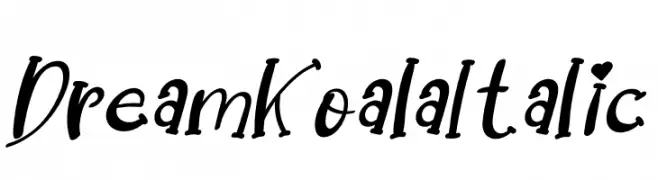
A playful handwritten font with a casual and friendly style.
A playful, italic script font with a hand-drawn, expressive style.
A playful handwritten font with smooth, rounded edges and a slight slant.
A playful, casual handwritten font with irregular, organic letterforms.